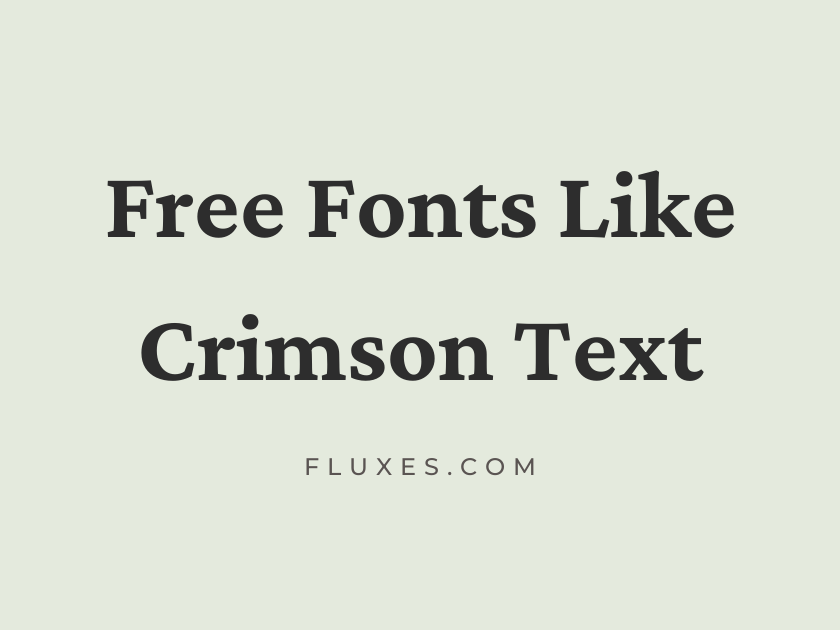
15 Best Free Fonts Similar to Crimson Text
Crimson Text has quietly become a favorite for long-form reading online, and it is easy to see why. Designed for book production and modeled on old-style serifs from the Garamond and Jenson tradition, it carries the warmth of metal type into web and print projects that need to feel literary rather than corporate. If you are hunting for free fonts similar to Crimson Text on Google Fonts, the search usually comes down to a small family of old-style serifs built for the same job: comfortable, humane text at paragraph sizes.
The alternatives below share that book-serif DNA. Some are direct descendants of Crimson Text itself, others come from entirely separate type traditions but land in the same warm, readable territory, and a few offer extra weights or optical sizes that Crimson Text lacks.
1. Crimson Pro
A quiet study in old-style letterforms and warmth
Crimson Pro is the official successor to Crimson Text, built by the same broader design conversation but expanded into a much fuller family with optical sizing and a wider weight range. If you love the original but need a display-ready bold or a lighter text weight for captions, this is the first place to look. It reads as a natural upgrade rather than a separate choice.
2. EB Garamond
Set your novel in a timeless old-style serif
Where Crimson Text borrows its DNA from historic Garamond types, EB Garamond goes straight to the source, a careful digital revival of Claude Garamont’s sixteenth-century punches. It has a slightly drier, more classical texture, with delicate hairlines that reward generous line height and larger point sizes. Pair it with a humanist sans for interface labels and it feels instantly at home in a book or scholarly layout.
3. Cardo
Ancient texts and modern prose, beautifully typeset
Cardo was built for classicists and biblical scholars who needed proper diacritics and polytonic Greek, and that scholarly pedigree shows in its calm, unhurried rhythm. It is denser and a touch more formal than Crimson Text, which makes it a strong pick for academic papers, footnoted essays, or any project where credibility matters more than charm.
4. Vollkorn
Sturdy German craftsmanship for long paragraphs
Vollkorn means “wholegrain” in German, and the name fits: this is a hearty, grounded text face with slightly heavier strokes than Crimson Text. It holds up well at small sizes in dense body copy, making it a dependable choice for magazine articles, blog posts, or anywhere text needs to stay legible without much room to breathe.
5. Lora
Warm curves for blog posts and editorial articles
Lora softens the old-style serif template with slightly brushed, calligraphic curves, giving it a more contemporary and approachable feel than Crimson Text. It has become a go-to for editorial websites and blogging themes precisely because it balances character with restraint. The italic is unusually good, worth using generously for pull quotes and emphasis.
6. Spectral
Screen-first serif built for reading interfaces
Spectral was commissioned specifically for on-screen reading, so its proportions and spacing are tuned for the low resolutions of phones and tablets rather than the printed page. It offers far more weights than Crimson Text, from a light suited to large headlines down to a semibold for emphasis. That range makes it a flexible substitute anywhere the original feels too limited in its options.
7. Source Serif 4
A dependable serif companion for interface text
Adobe built Source Serif as a text companion to Source Sans, and it carries that same engineered, no-nonsense clarity. It is less ornamental than Crimson Text but arguably more versatile, with variable weight and optical size axes that adapt smoothly from captions to headlines within one family.
8. Literata
Designed for e-readers and long digital novels
Literata was commissioned by Google specifically for its e-book platform, so comfort during extended reading sessions is baked into every curve. It shares Crimson Text’s book-first mission but adds a variable font with optical sizing that sharpens automatically at small screen sizes. For ebooks, long-form journalism, or any reading app, it is one of the most purpose-built alternatives on this list.
9. Alegreya
Expressive serif with a literary, dynamic rhythm
Alegreya was designed for literature specifically, and it shows a livelier calligraphic energy than the more restrained Crimson Text. The contrast between thick and thin strokes is more pronounced, giving pages a bit of drama, so it suits poetry, fiction, and narrative-driven editorial design better than dense technical copy.
10. PT Serif
Universal serif with excellent multilingual support
Commissioned for a broad public-access project, PT Serif was engineered for readability across dozens of languages and rougher rendering conditions. It has a slightly more mechanical, transitional feel than Crimson Text, less old-style warmth, more even-handed neutrality, which makes it a safe pick when a project needs a serif that simply performs everywhere.
Always test at your actual body text size before committing. Some old-style serifs that look beautiful in a large specimen turn faint or muddy at 14 to 16 pixels on screen.
Any of these free Google Fonts options can stand in comfortably for Crimson Text, whether the project calls for a scholarly journal, a novel-length ebook, or a warm, readable blog theme. Downloading a few and testing them directly in your own layout is still the surest way to find the one that feels right.